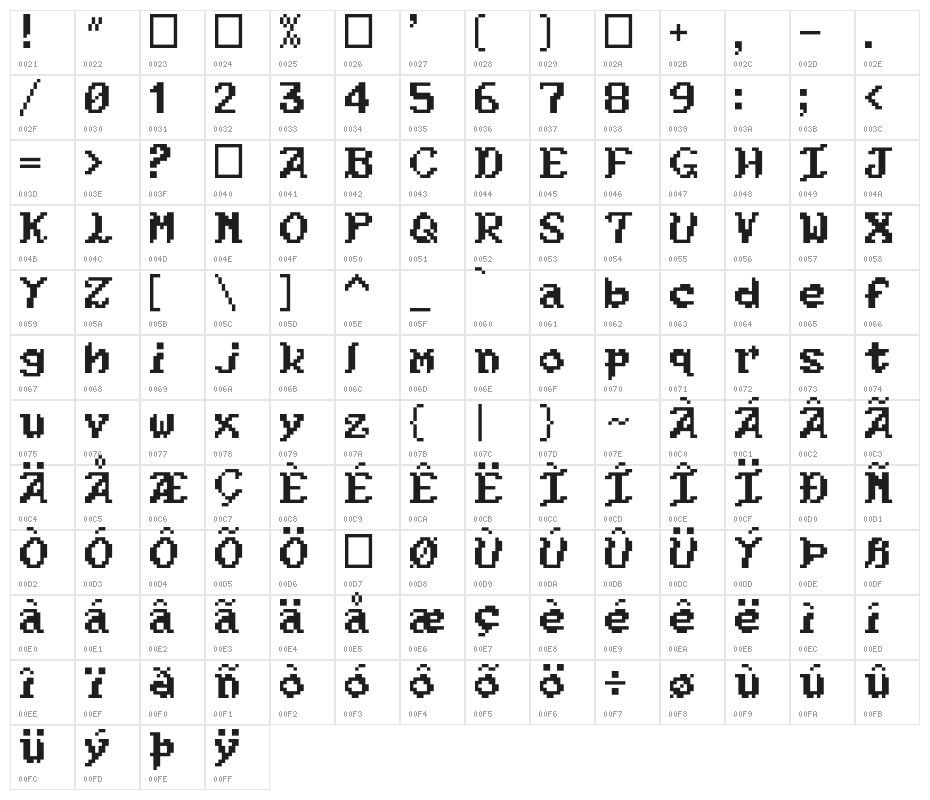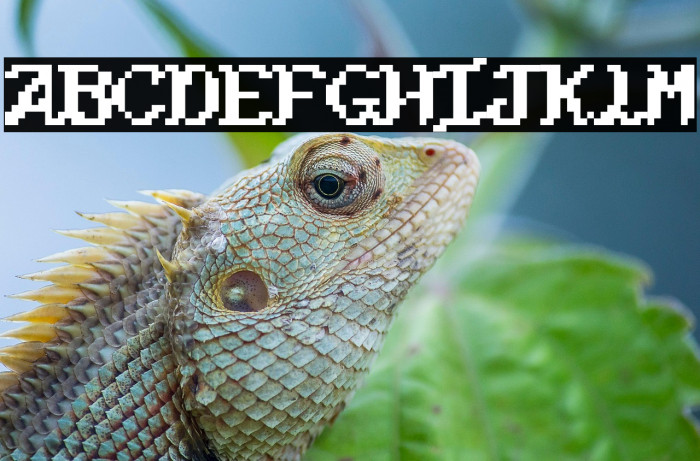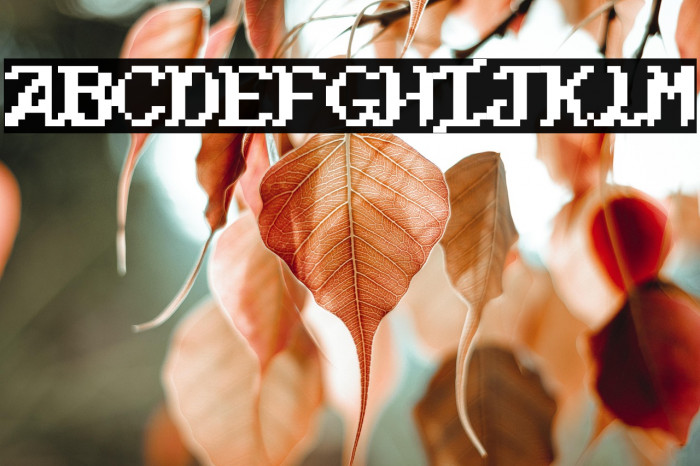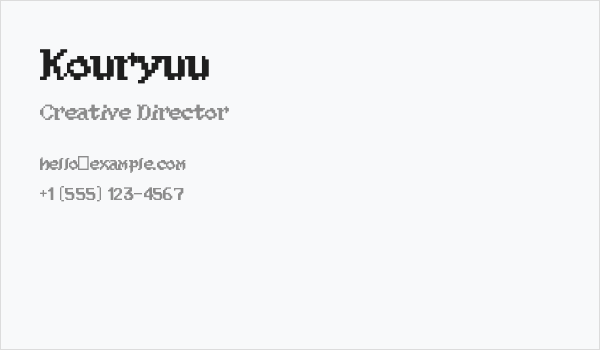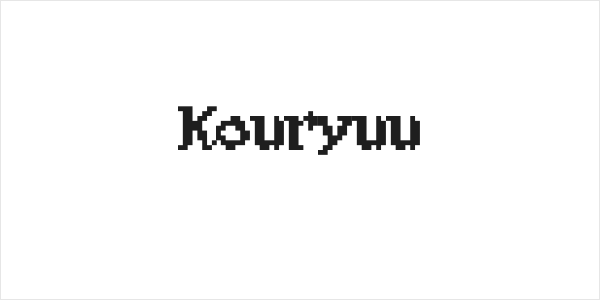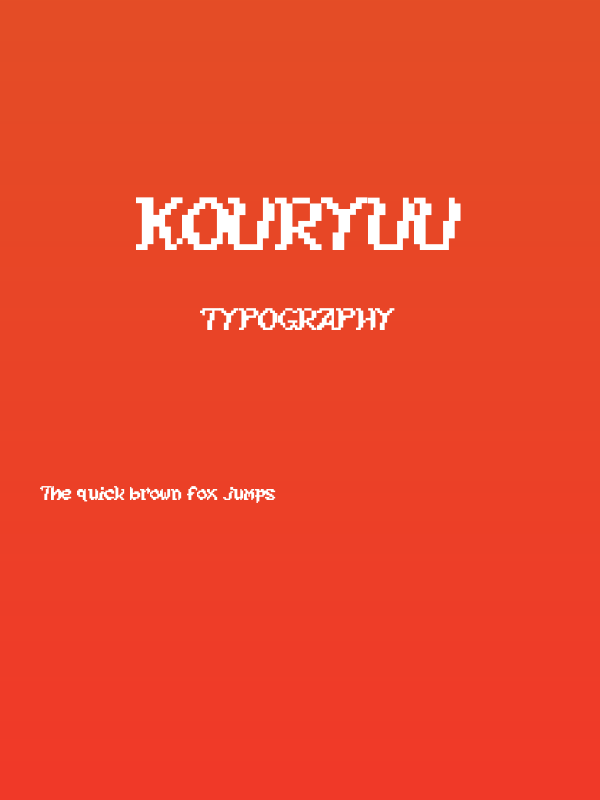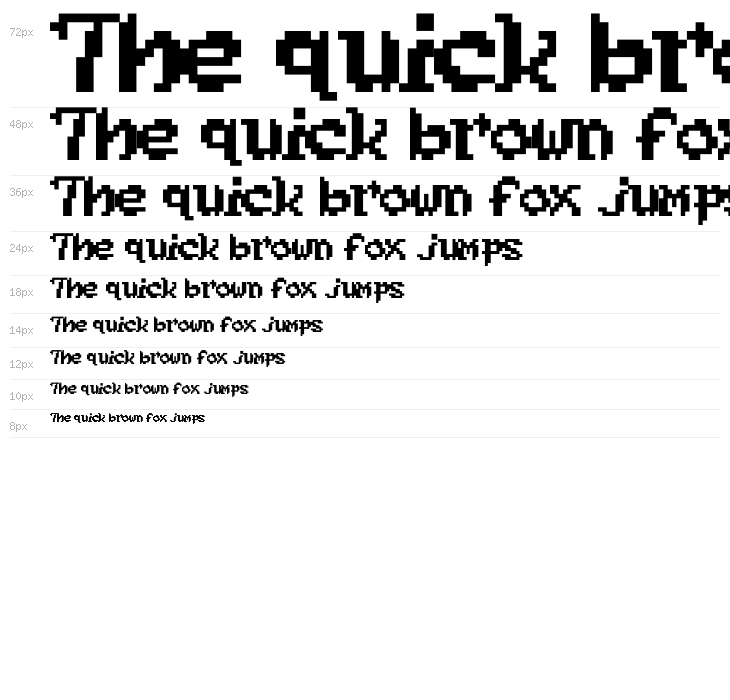
Kouryuu Font
Kouryuu Description
This font features a pixelated, blocky style reminiscent of retro video games and digital displays. Each character is constructed with a grid-like appearance, giving it a distinct, nostalgic feel. The uppercase and lowercase letters maintain a consistent height, while the numbers and special characters follow the same pixelated design. The font's unique aesthetic makes it stand out, with sharp edges and uniform stroke widths that emphasize its digital roots.
| Overall Style | Retro, Digital |
| Use Case | Logos, Headlines, Digital Art |
| Proposed Projects | Ideal for video game design, digital art projects, retro-themed posters, and any creative work that seeks to evoke a sense of nostalgia for early digital aesthetics. |